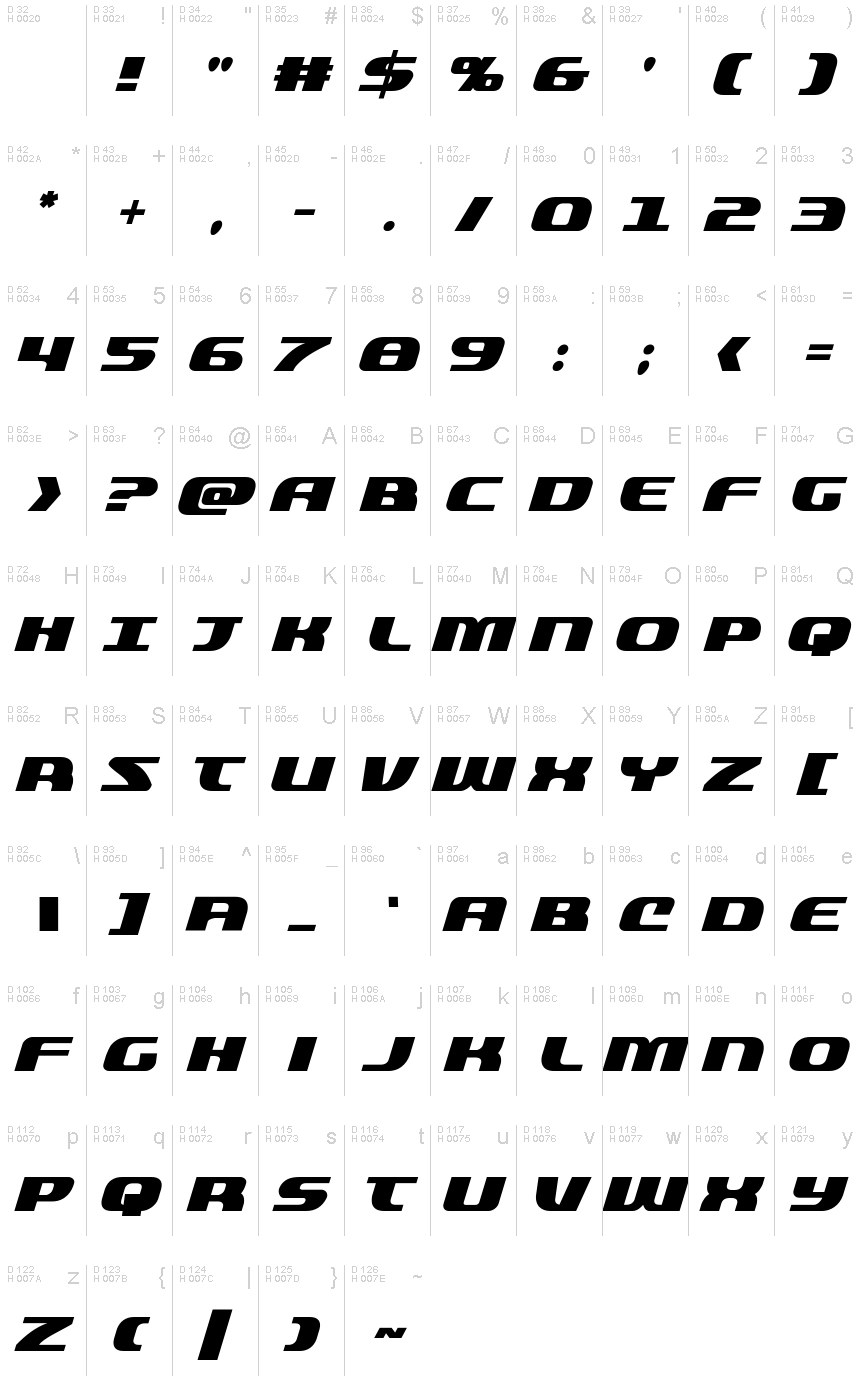
Quickening Super-Italic
Quickening Super-Italic, a bold creation from Iconian Fonts, exudes a dynamic and futuristic vibe. With its forward-leaning stance and assertive presence, this display font captures the essence of motion and speed. The expanded characters are robust yet sleek, making them stand out in any context where energy and modernity are desired.
This font is ideal for designs that aim to make a strong statement. Whether it's the title of a sci-fi novel, the logo for a tech startup, or the headlining act on an event poster, Quickening Super-Italic is tailored for scenarios that call for impact with a contemporary twist.